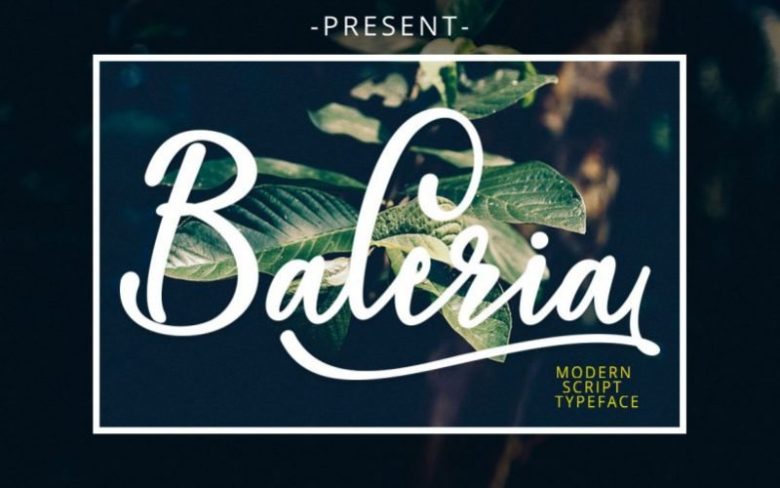
Baleria Calligraphy Font
Baleria Script a new fresh & modern script with a handmade calligraphy style, decorative characters and a dancing baseline! So beautiful on invitation like greeting cards, branding materials, business cards, quotes, posters, and more!!